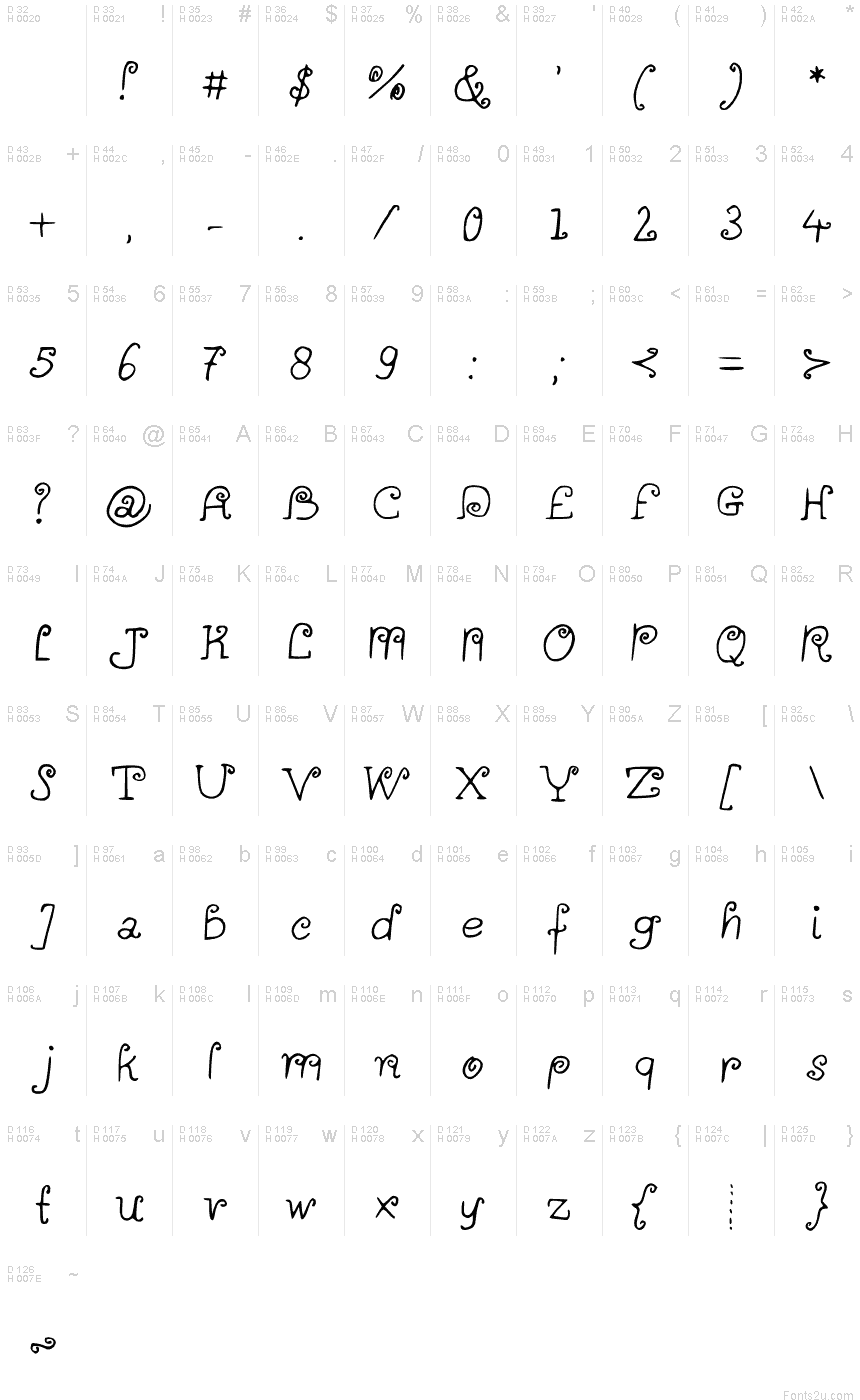
ALittleScribbleinMyBook
A Little Scribble in My Book is a free curly decorative font with the looseness of hand-drawn lettering. Its tall, wiry letters twist into small spirals and hooked ends. The uneven proportions keep the line lively and informal.
Storybook themes and playful fantasy suit its wandering shapes, making it useful for children's publishing and game graphics. It can also lend a homemade streak to craft packaging or music posters. The recurring curls can echo vines, smoke, or doodled borders, letting the lettering join the surrounding illustration.